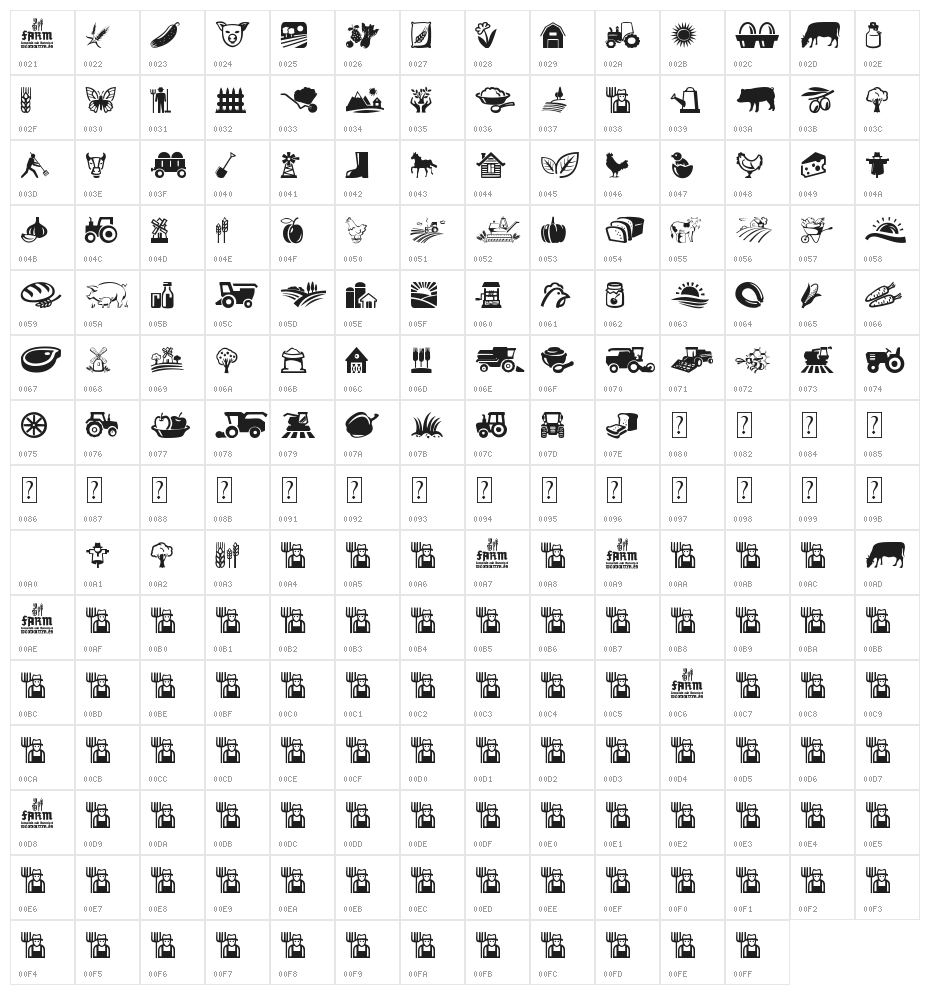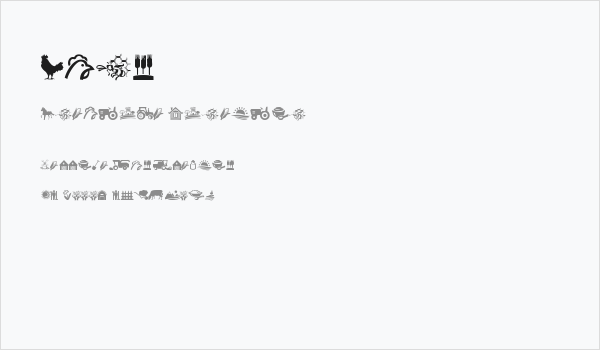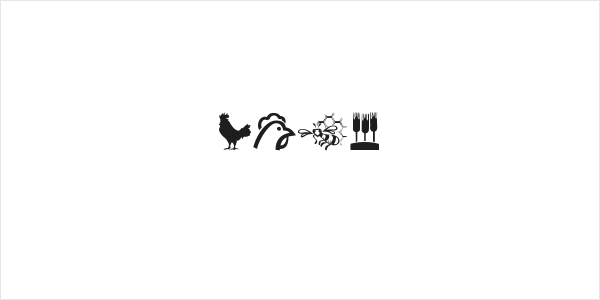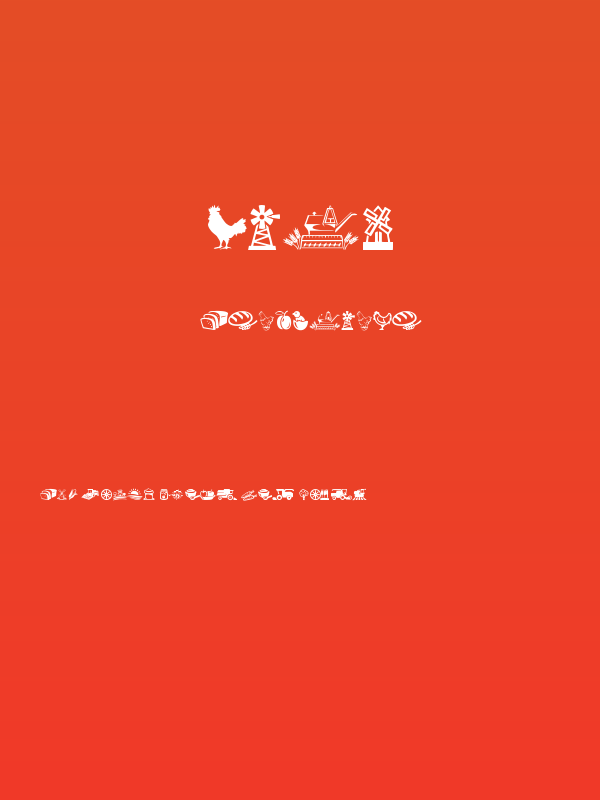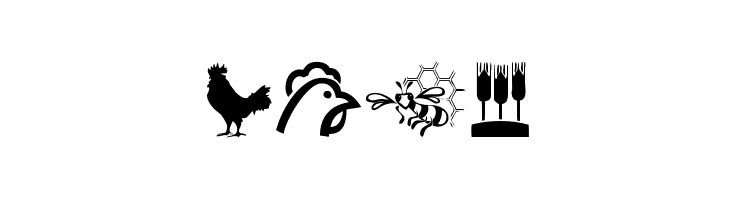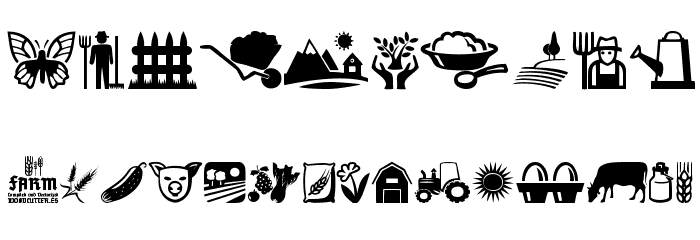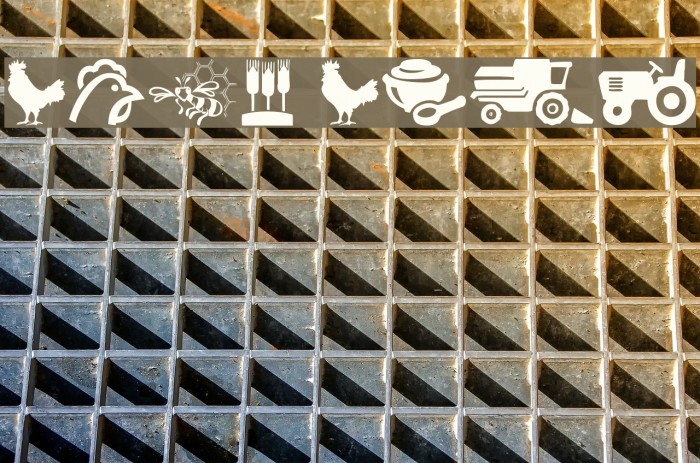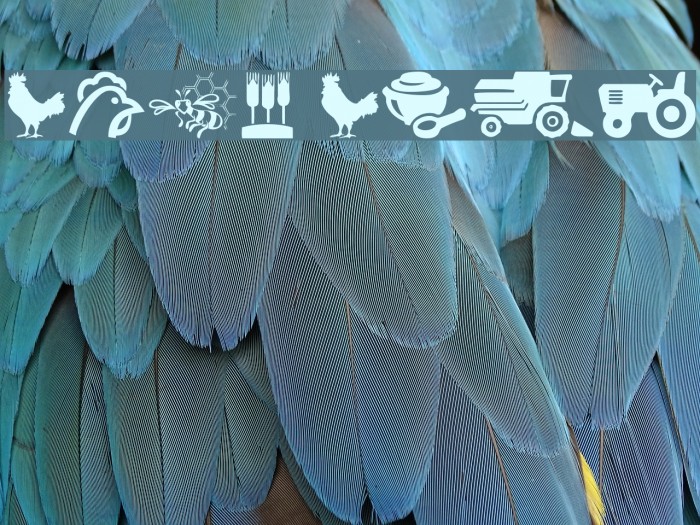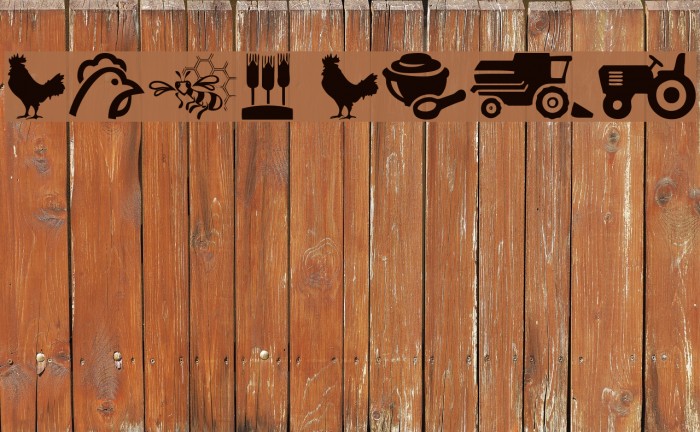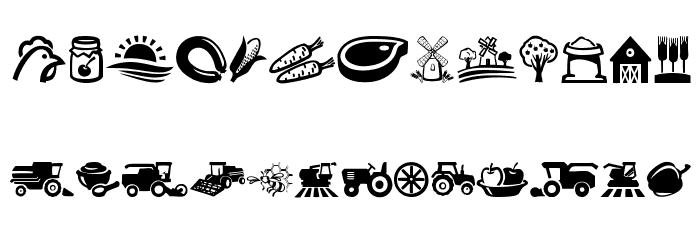
Farm Font
Farm Description
A decorative icon set featuring bold, high-contrast farm and agriculture-themed illustrations, including animals, crops, equipment, and rural scenes. The icons are solid, filled silhouettes with playful and clear shapes, suitable for visual storytelling.
| Overall Style | Decorative, Playful, Thematic |
| Use Case | Logos, Icons, Posters, Educational graphics |
| Proposed Projects | Children’s books, educational materials, infographics, farm branding, packaging, signage, websites, and event posters. |